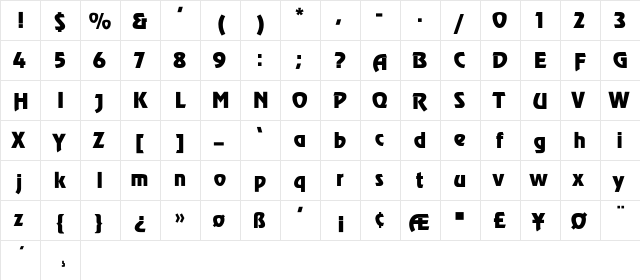
Bastille Heavy Regular
Design Context for Bastille Heavy Typeface
Bastille Heavy takes a measured approach to typography — its balanced proportions and neutral character make it a reliable workhorse for both digital and print work.